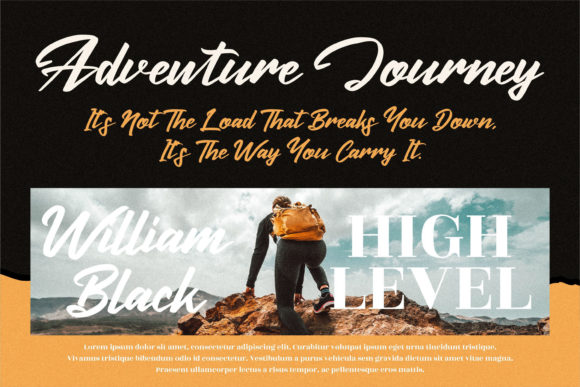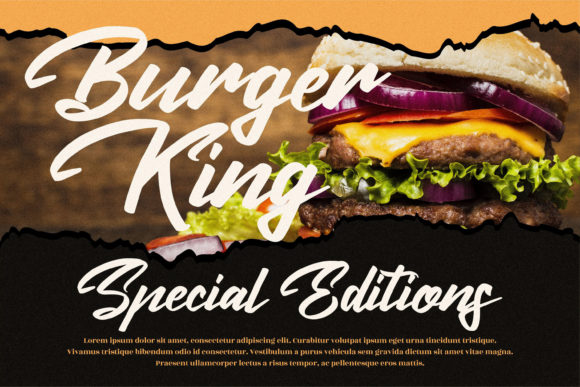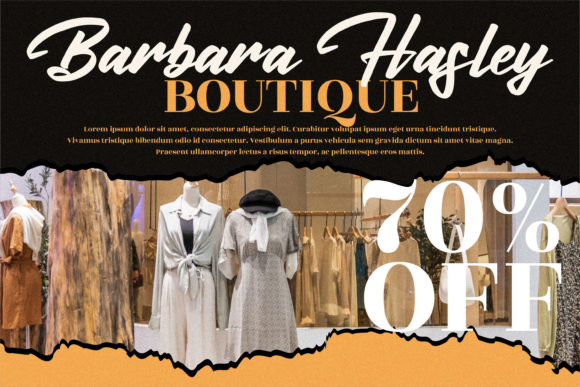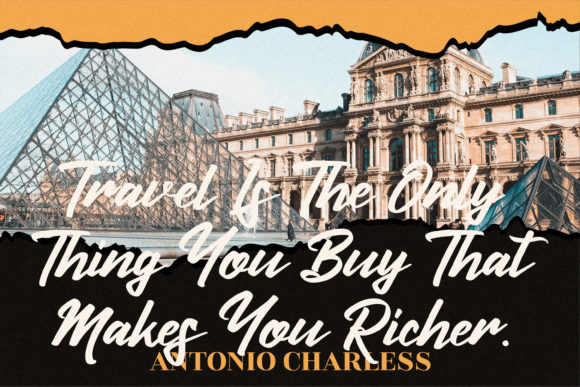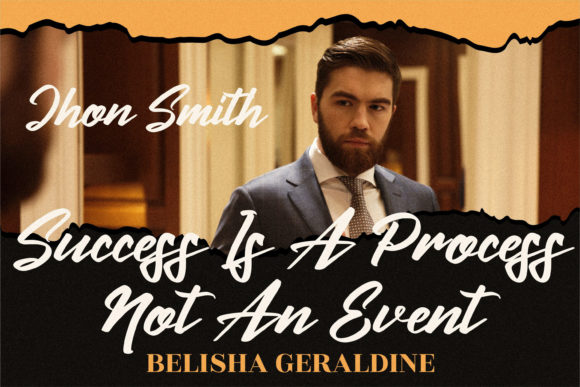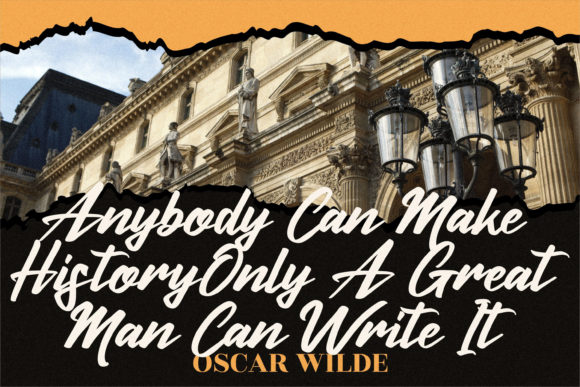
Introduction to Huttan Cerote Font
Huttan Cerote is a modern and bold brushed script font.
It looks beautiful on a variety of designs requiring a personalized style, such as wedding invitations, thank you cards, weddings, greeting cards, logos and so on This font is PUA encoded which means you can access all of the glyphs and swashes with ease.
Key Features of Huttan Cerote Font